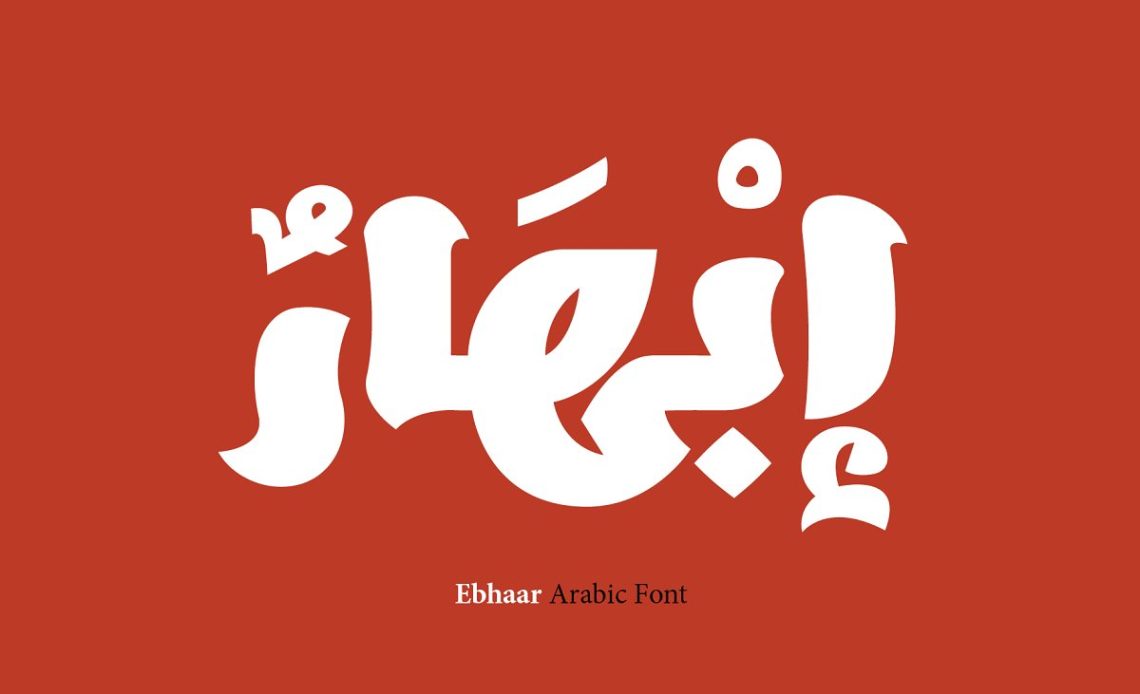
Introducing Ebhaar - Arabic Font, the perfect blend of modern brush-pen lettering and traditional Arabic calligraphy. This font is created by the talented Mostafa Abasiry and is the epitome of beauty and elegance.
The word 'Ebhaar' means Dazzle in Arabic and this font certainly lives up to its name. It is a display font that is perfect for both heading and casual titling, making it versatile and suitable for a variety of uses.
Ebhaar is the best font for display with its captivating style that will immediately grab your attention. It is designed to make your text stand out and leave a lasting impression on your audience.
One of the key features of this font is its support for Arabic, Urdu and Persian languages. This makes it ideal for users who are looking to incorporate these languages into their designs.
Overall, if you are looking for a font that is both beautiful and functional, then Ebhaar is the perfect choice. Its stunning design and support for multiple languages make it a must-have for designers and creatives looking to make an impact.